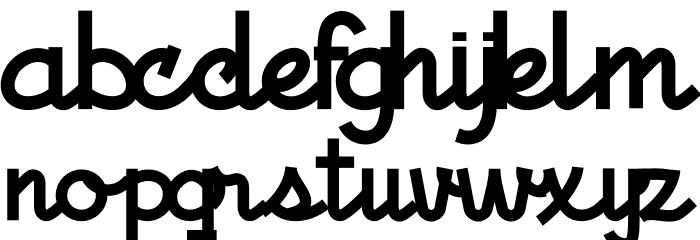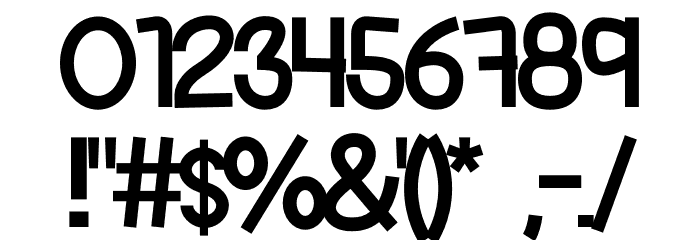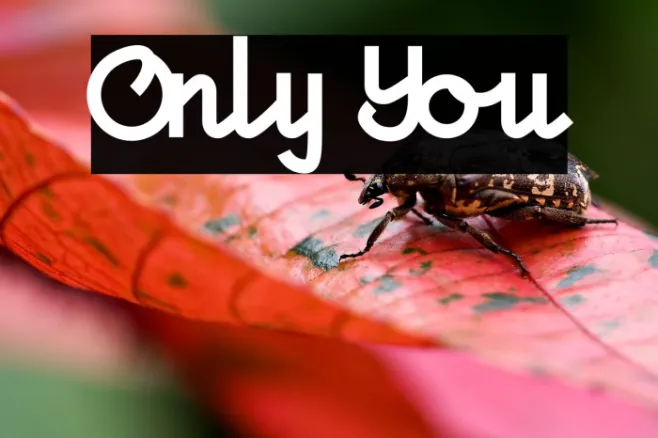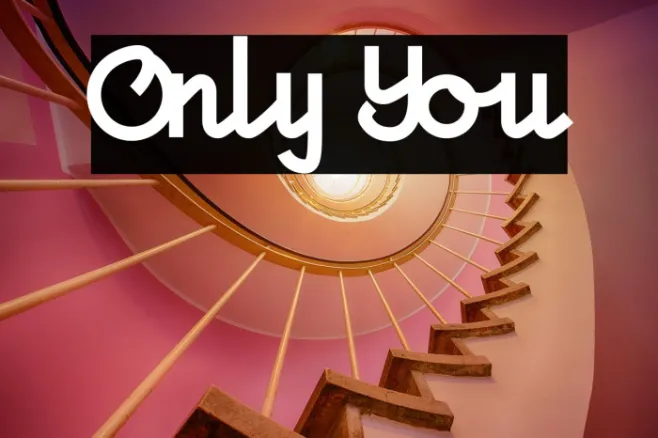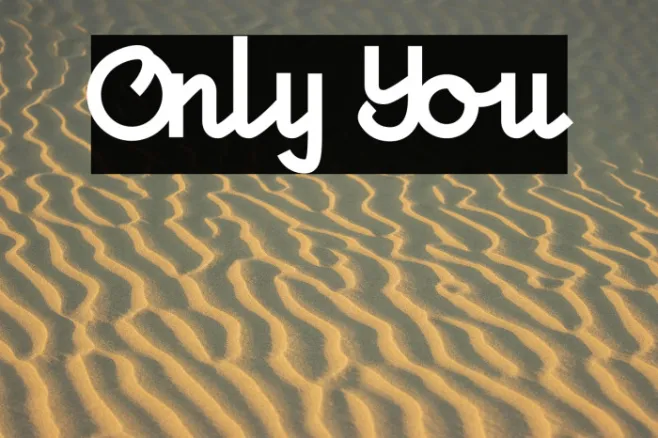
Only You Font
This font features a playful and bold style with a handwritten touch. The uppercase letters are characterized by their thick strokes and slightly rounded edges, giving them a friendly and approachable appearance. The lowercase letters maintain the same boldness, with a consistent flow that enhances readability. Numbers are equally bold and maintain the same playful aesthetic. Special characters are well-integrated, matching the overall style of the font. The font's unique charm makes it suitable for creative and informal projects.
A bold, playful handwritten font with thick strokes and rounded edges.
- Font: Only You
- Proposed Projects: Ideal for children's books, playful branding, greeting cards, and creative posters.
- Category: Handwritten
- Overall Style: Playful